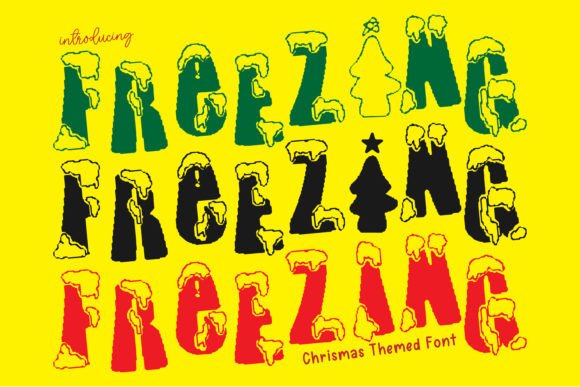
Welcome to the captivating world of Freezing Font, a culinary-inspired display font that will tantalize your taste buds and ignite your creativity. Designed with passion by the talented KtwoP, Freezing Font is an extraordinary fusion of retro charm and modern aesthetics, perfect for food bloggers, culinary enthusiasts, and graphic designers seeking to create mouthwatering visual experiences.
Feast your eyes on the playful curves and whimsical details of Freezing Font, carefully crafted to evoke a sense of nostalgia and warmth. Each letter dances across the page like a delectable treat, inviting your audience to indulge in the visual feast. This font is not just a collection of characters; it's a culinary adventure that transports you to a world where fonts come alive and stories unfold on your screen.
With its incredible versatility, Freezing Font effortlessly adapts to a myriad of culinary creations. Whether you're crafting mouthwatering blog posts, designing captivating menus, or creating eye-catching social media posts, this font will elevate your creations to tantalizing new heights. Its distinctive retro style adds a touch of vintage charm, while its contemporary appeal ensures it remains relevant and engaging in today's digital landscape.
Freezing Font is more than just a font; it's an invitation to embark on a culinary journey where your imagination and creativity run wild. Unleash your inner chef and use this font to craft visual masterpieces that will leave your audience craving more. So, don't just read about it—experience the delectable charm of Freezing Font today and transform your culinary creations into unforgettable masterpieces.